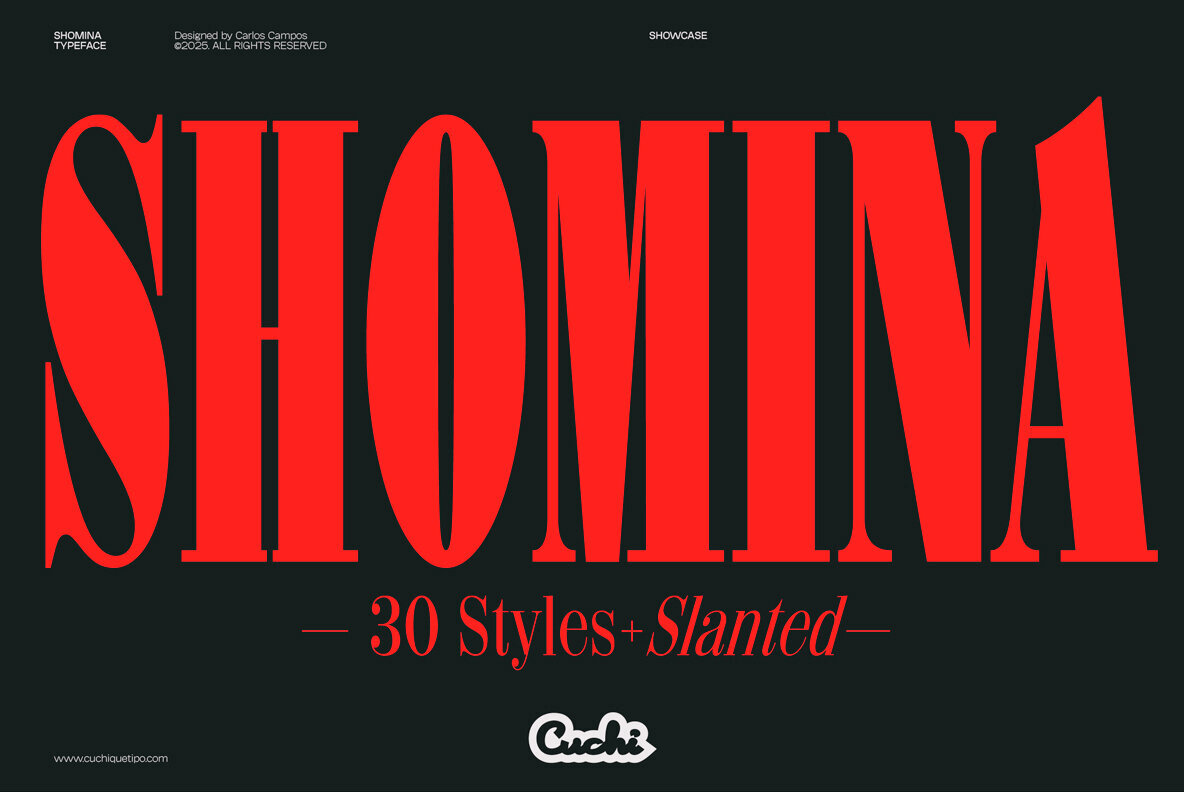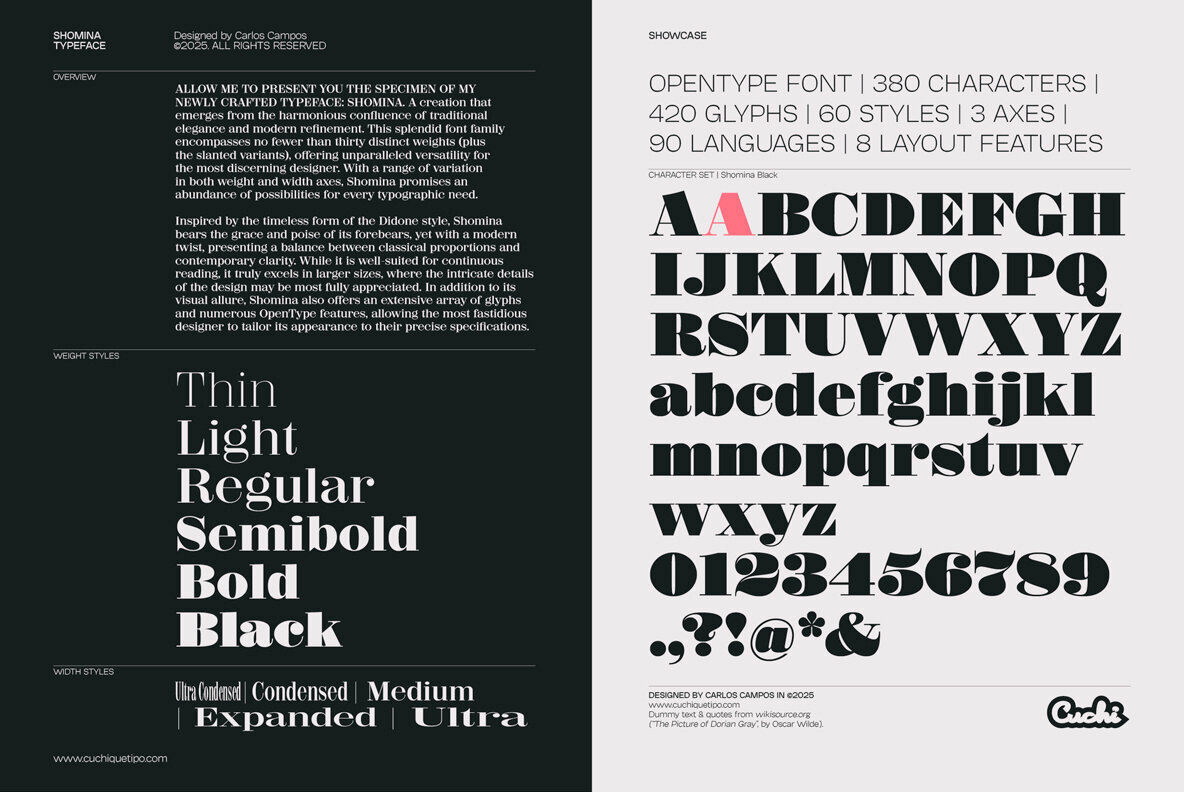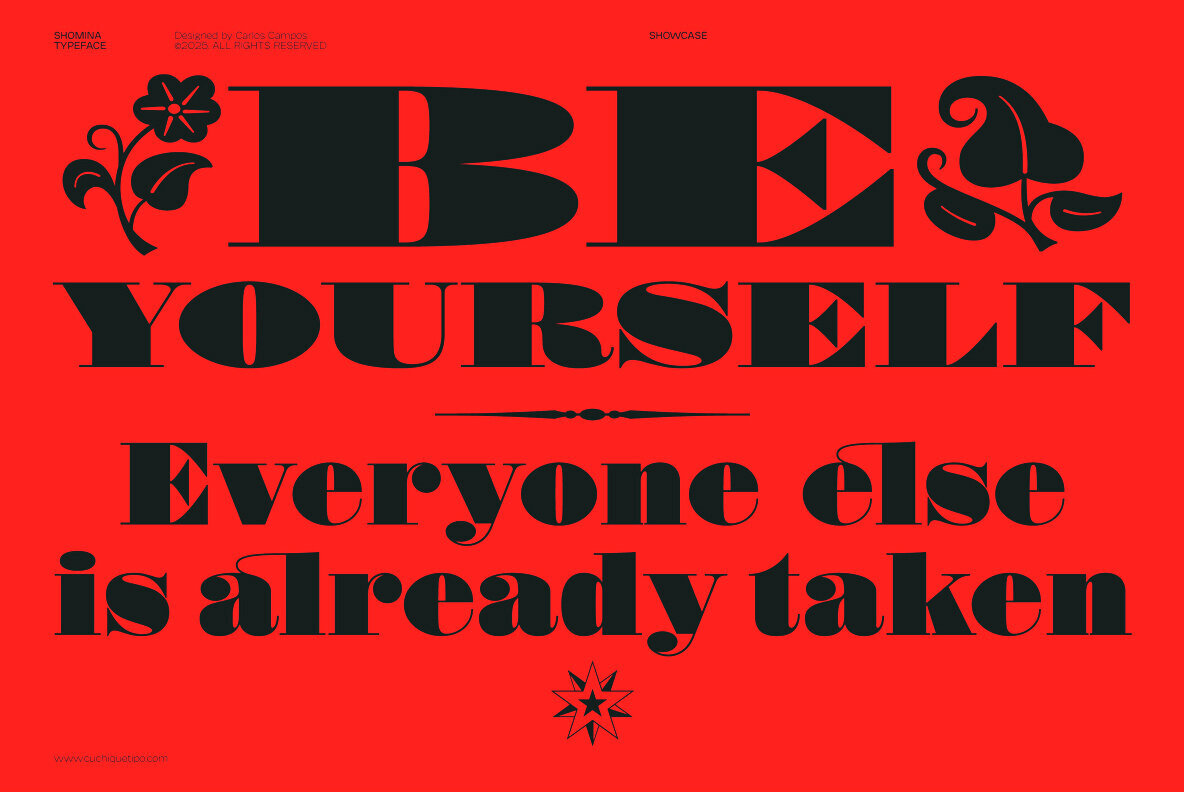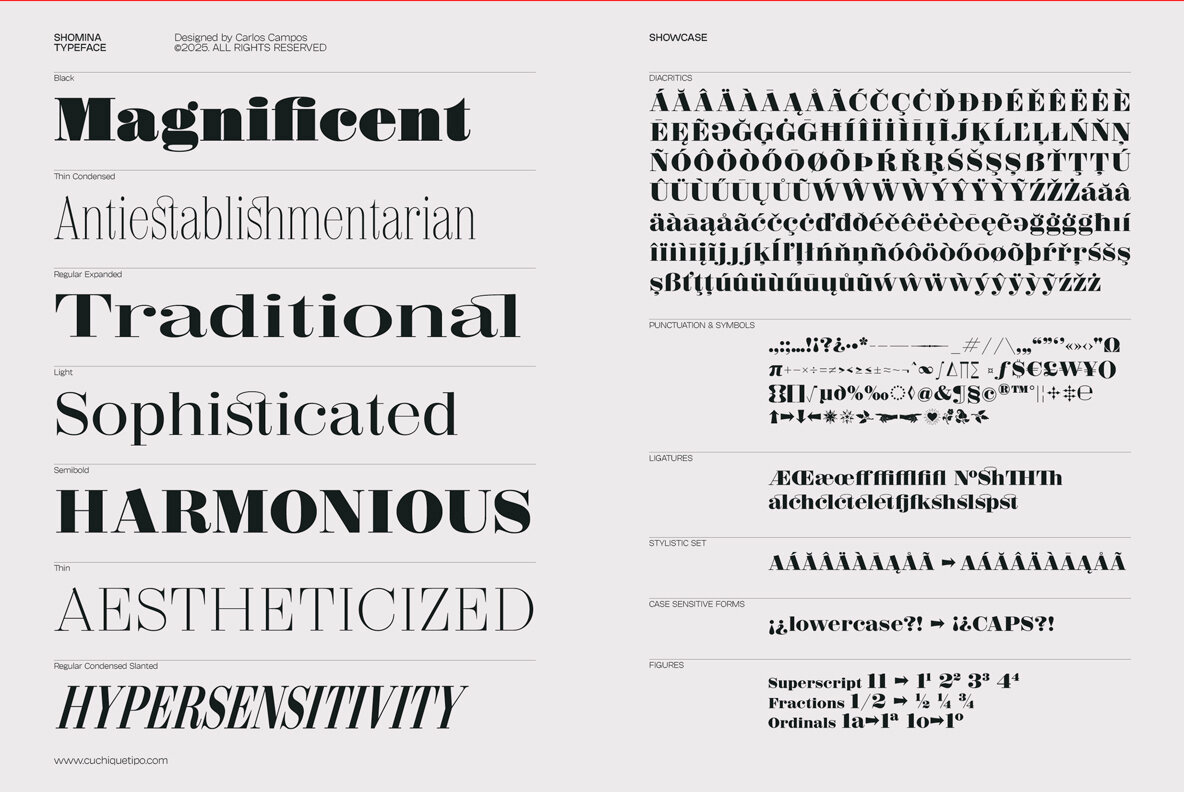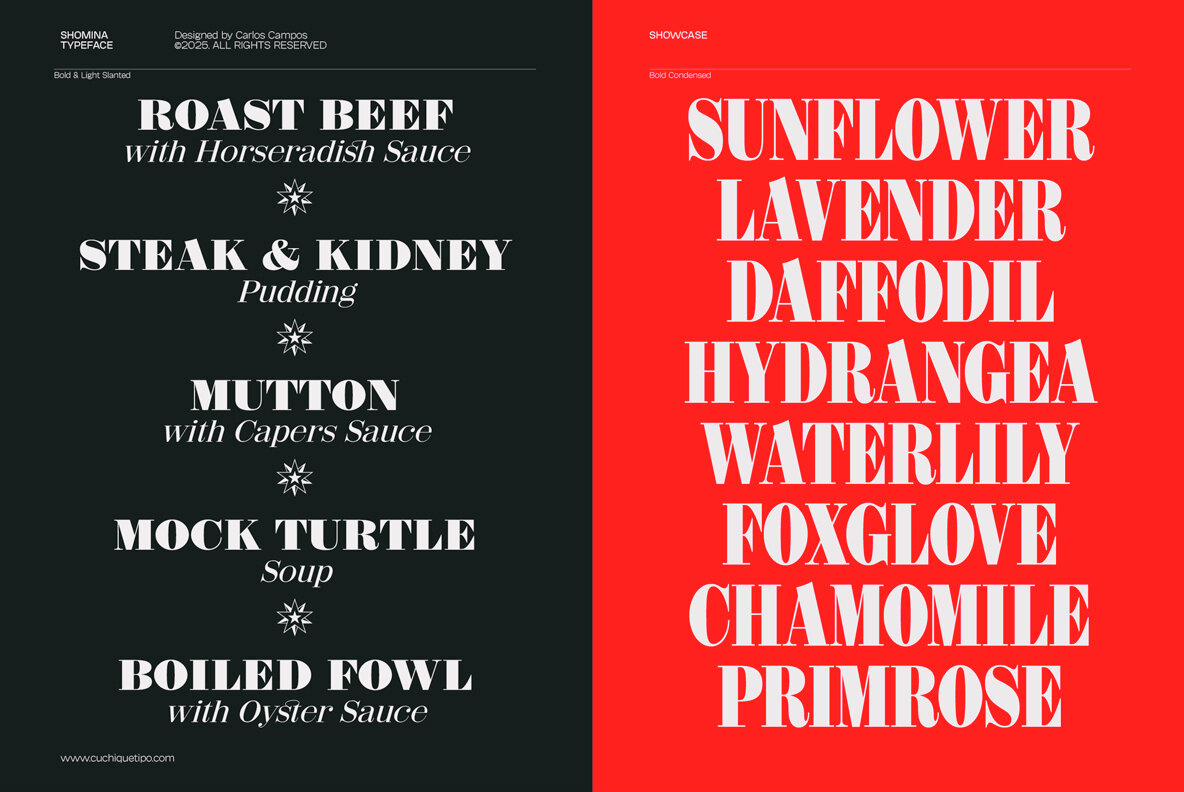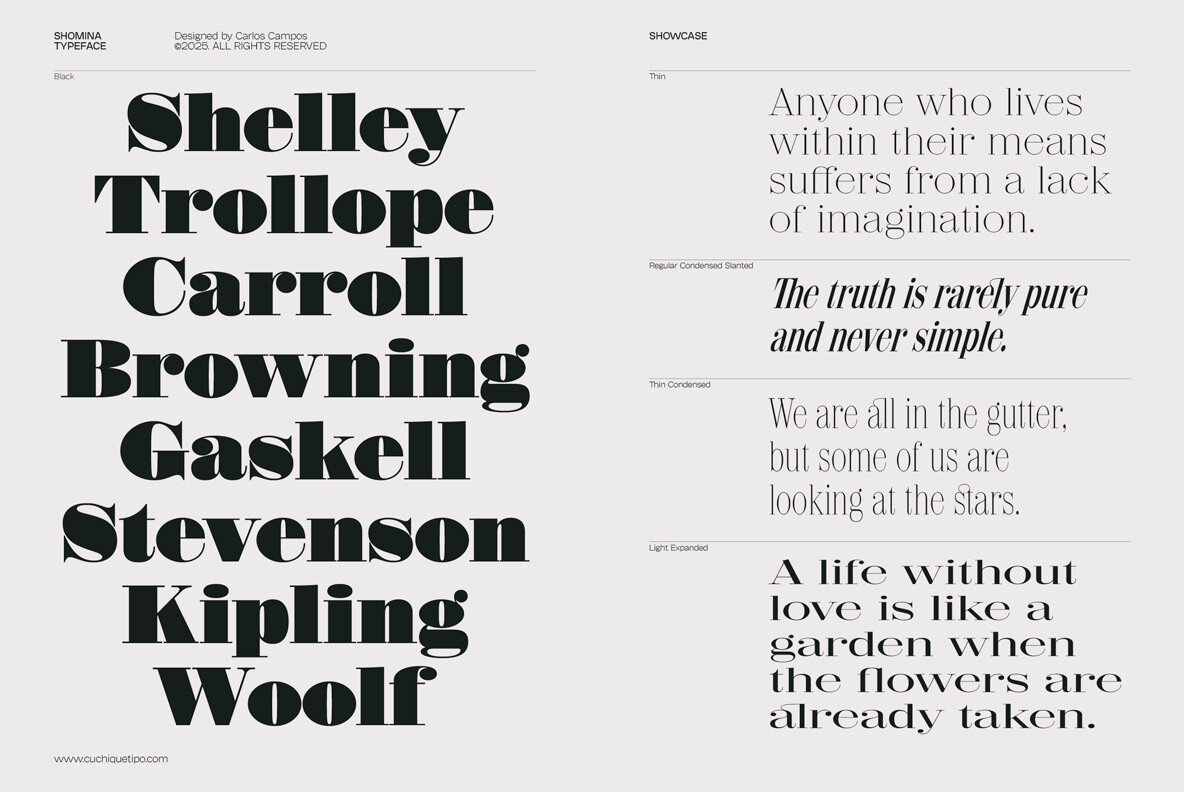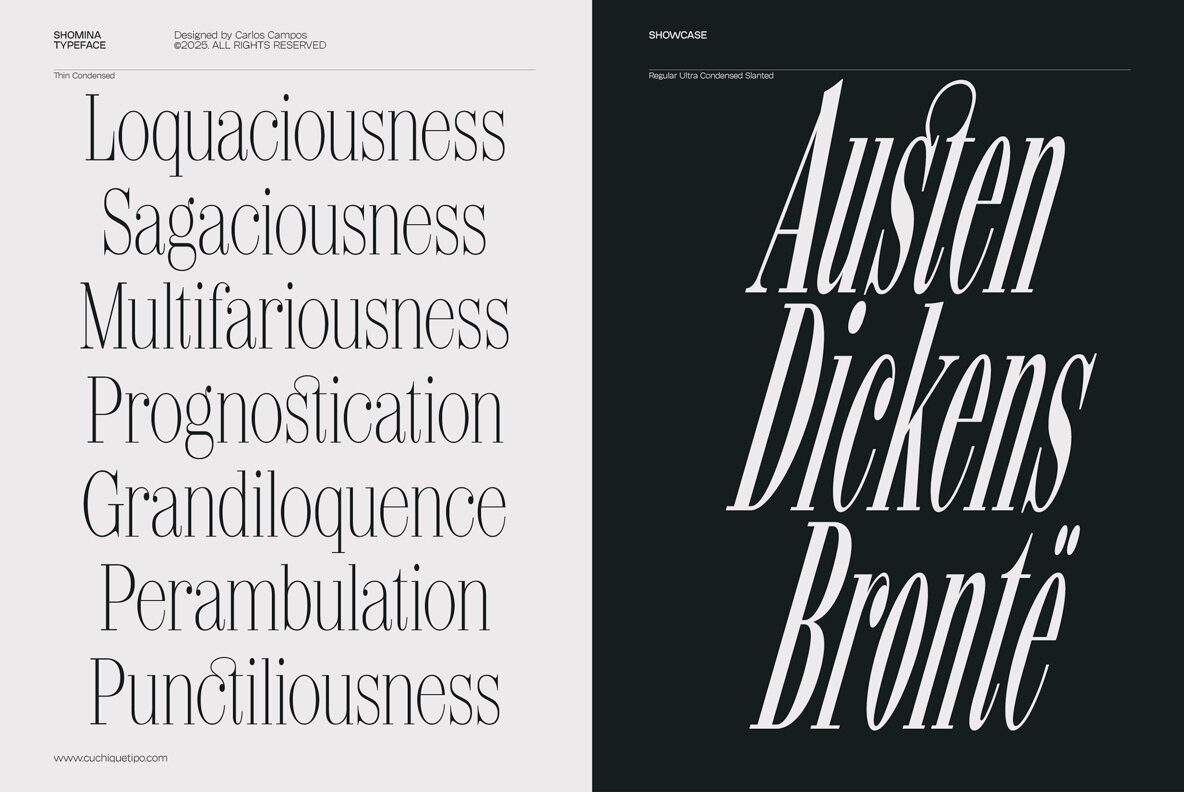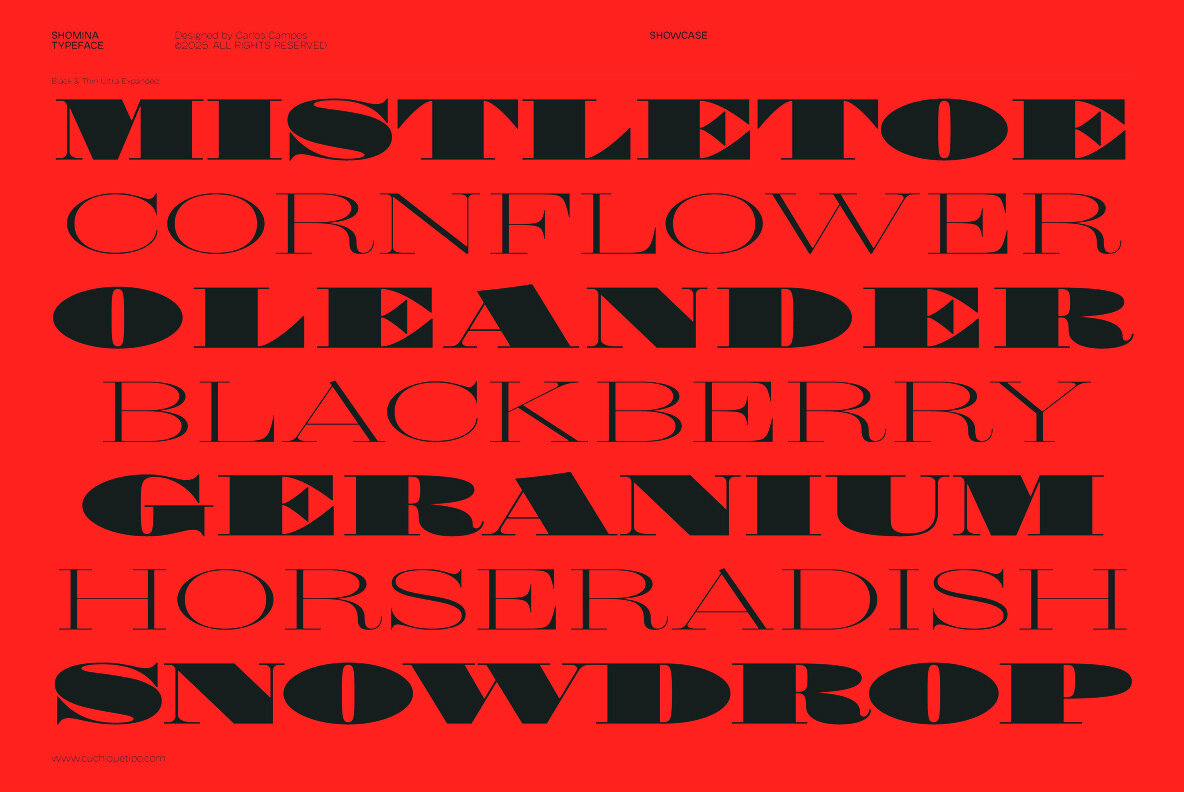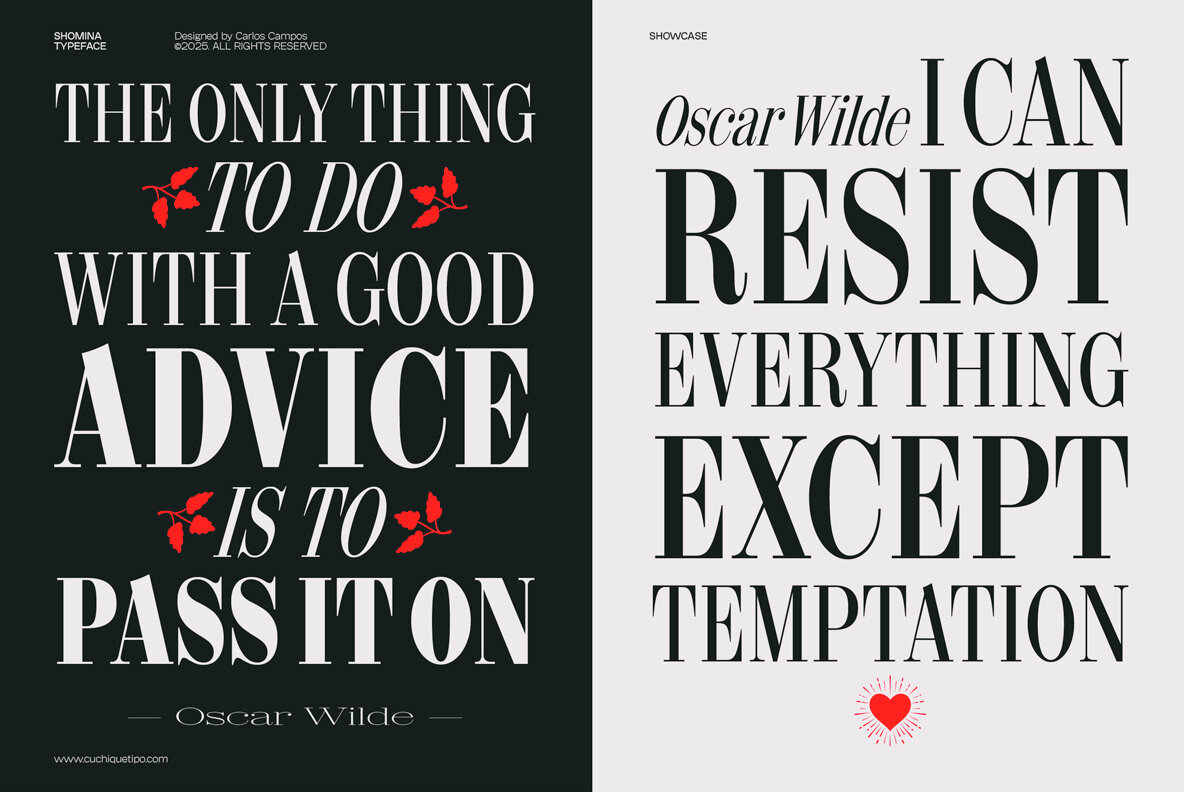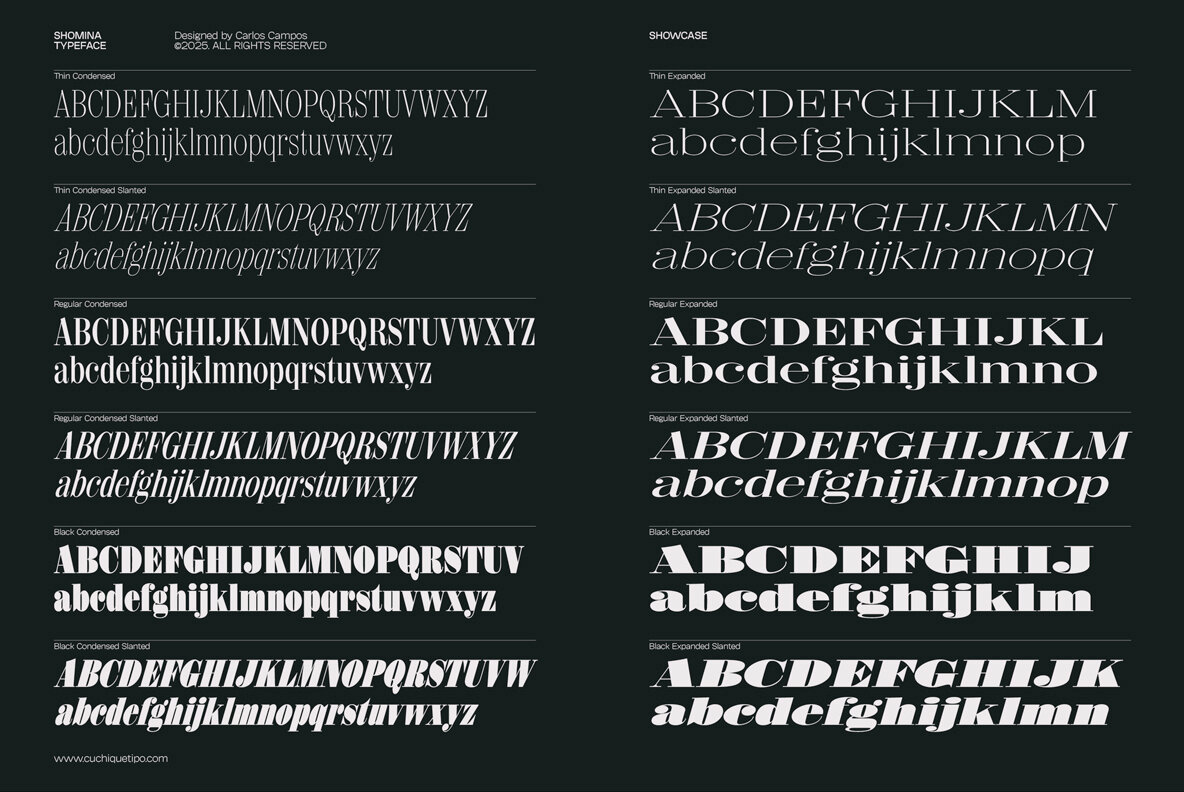
Shomina Font
Shomina's sophisticated character makes it a valuable addition to any designer's collection, enhancing both traditional and avant-garde compositions alike with its refined and dynamic presence.